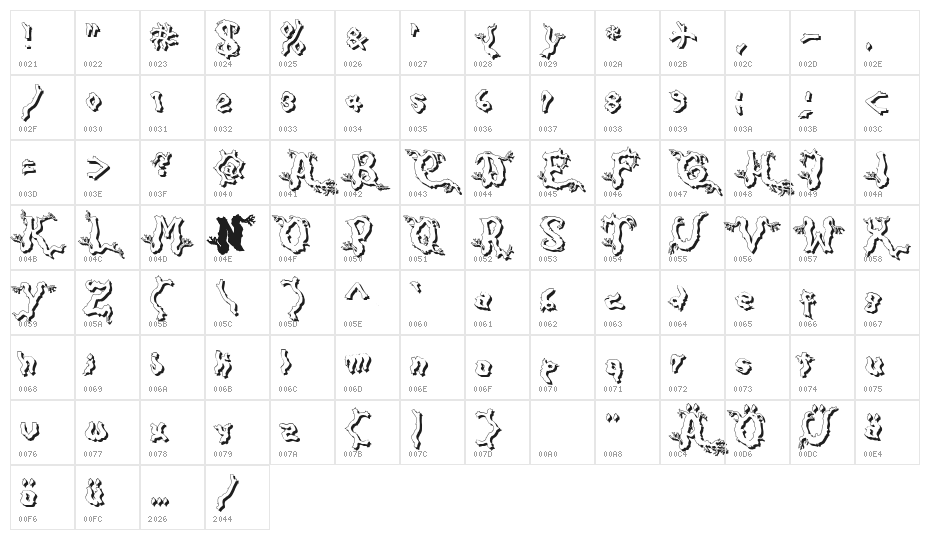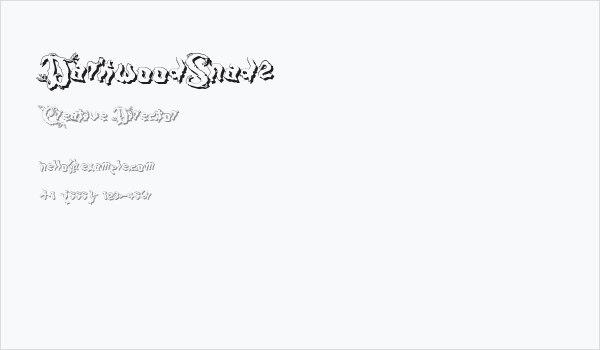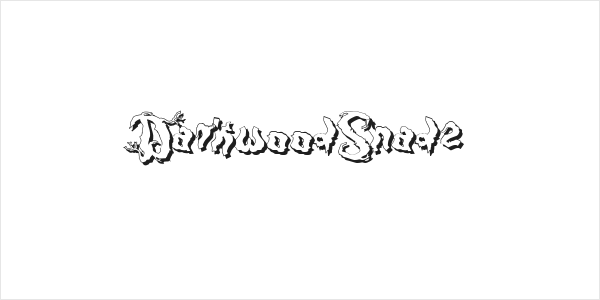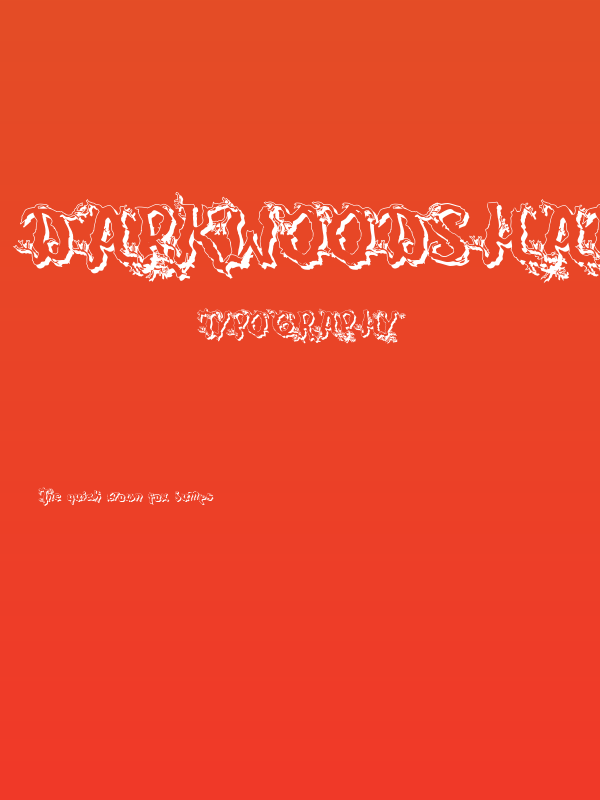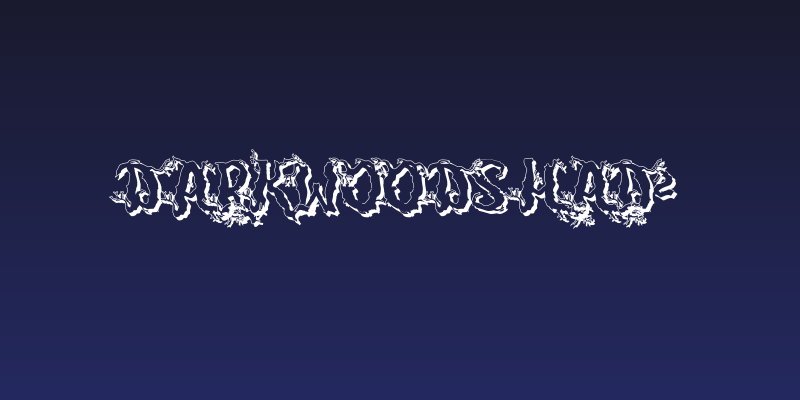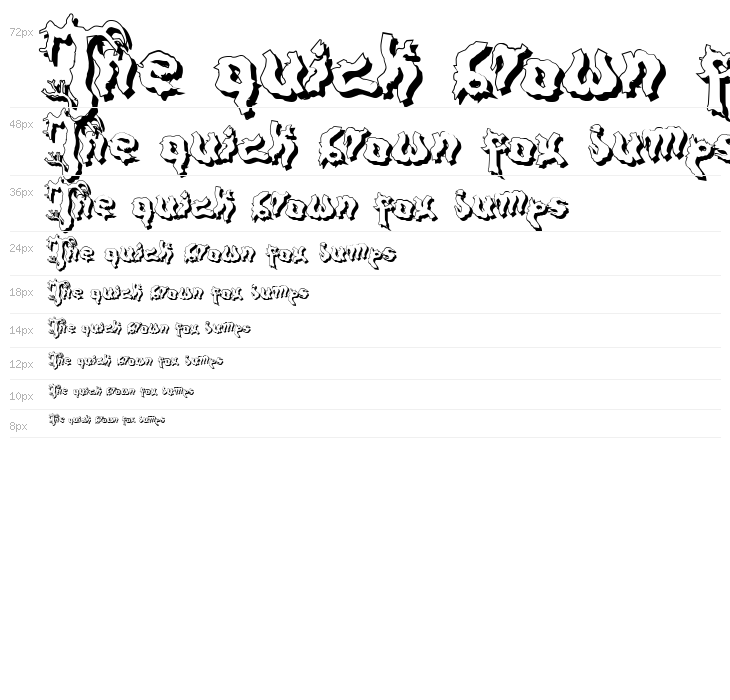
DarkwoodShad2 Font
DarkwoodShad2 Description
This font features a highly decorative and intricate design, reminiscent of twisted vines or roots, giving it a dark and mysterious appearance. The characters are bold and have a shadow effect, enhancing their three-dimensional look. Each letter is uniquely crafted with uneven edges and a rugged texture, making it stand out as a display typeface. The uppercase and lowercase letters maintain a consistent style, while the numbers and special characters follow the same elaborate theme. This font is perfect for projects that require a dramatic and eye-catching aesthetic.
| Proposed Projects | Ideal for horror-themed posters, fantasy book covers, video game titles, and Halloween event flyers. |